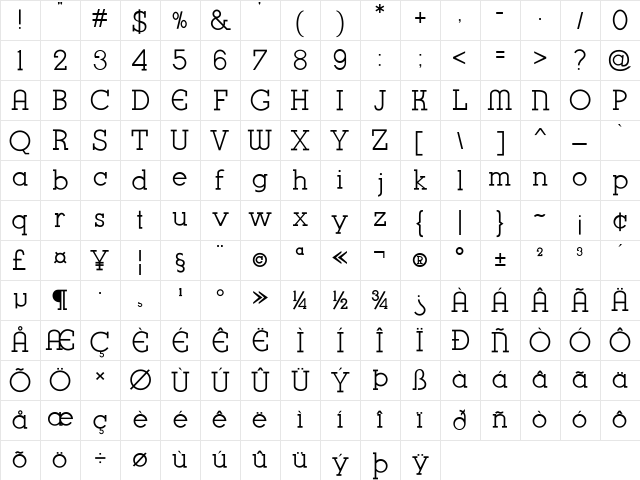
K22 Karnak Deco Regular
Foundry: Toto
Designer: Toto
Design Context for K22 Karnak Deco
K22 Karnak Deco is a composed and adaptable typeface that performs quietly and consistently across a wide range of design contexts.